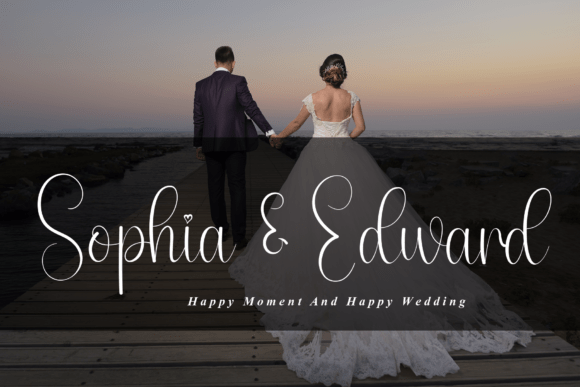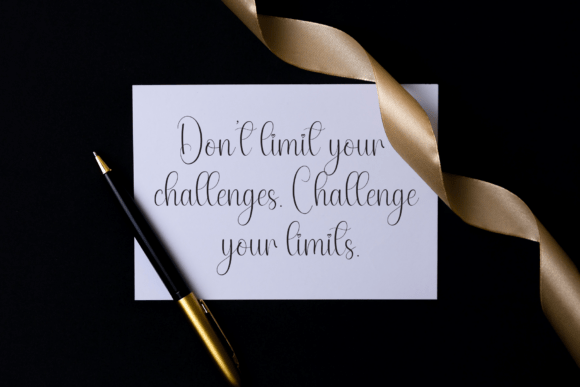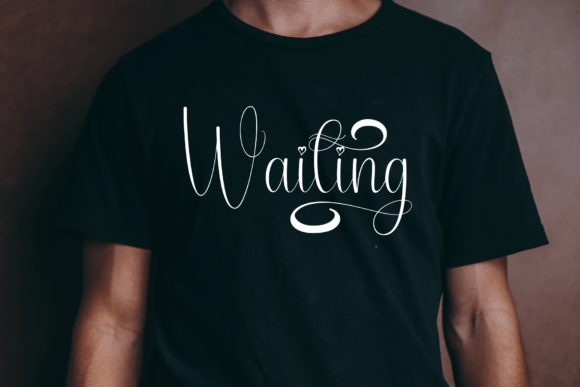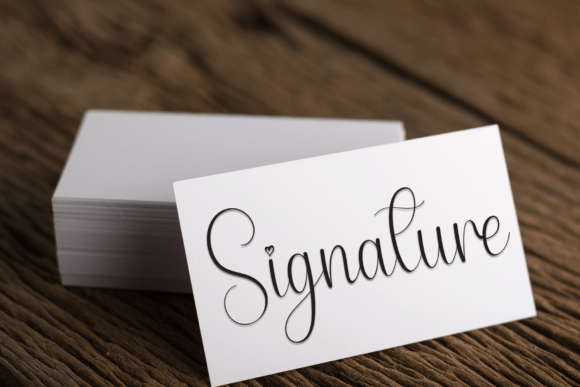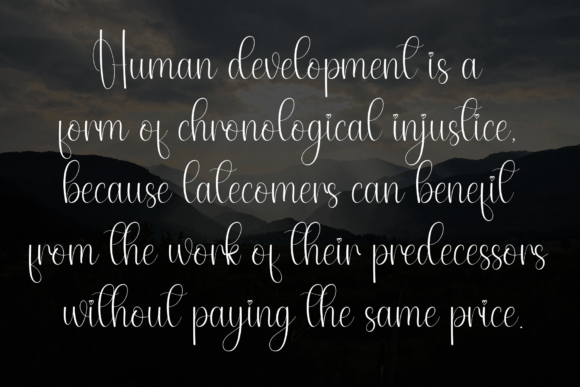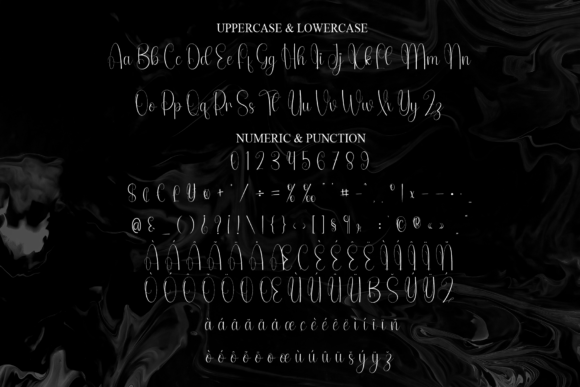
The Elusive Perfect Font: My Encounter with Blacky
I’ll never forget the time I was working on a wedding invitation project, and my client asked for a font that was “elegant, yet playful.” I scoured the internet, tried out dozens of fonts, but nothing seemed quite right. That was until I stumbled upon Blacky, a stylish handwritten script font that instantly caught my eye. In this article, I’ll share my experience with Blacky, its features, and how to make the most of it in your designs.
First Impressions: A Review of Blacky
What I Love About Blacky
- ✨ Fluid, graceful strokes that exude elegance and charm
- ✅ Perfect for branding, invitations, and stationery
- 💫 Smooth curves and natural flow create a timeless, refined look
- 🎨 Highly versatile and pairs well with a variety of design elements
While Blacky is an excellent font, there are a few things to keep in mind:
- ⚠️ Some users may find the font a bit too ornate for very casual designs
- 🤔 Limited availability of certain OpenType features in certain software
The Story Behind Blacky
Blacky was designed by a team of typographers who wanted to create a font that embodied the perfect balance of elegance and playfulness. Inspired by classic calligraphy and modern digital design, Blacky is the result of meticulous craftsmanship and attention to detail.
Q: What type of designs is Blacky best suited for?
A: Blacky is perfect for branding, invitations, stationery, and any design that requires a touch of elegance and sophistication.
Q: Does Blacky support OpenType features?
A: Yes, Blacky supports OpenType features, including glyphs and stylistic alternates, which can be accessed in compatible software.
Q: Is Blacky available in different weights or styles?
A: Blacky is available in a single weight, but its versatility and range of OpenType features make it suitable for a variety of design applications.